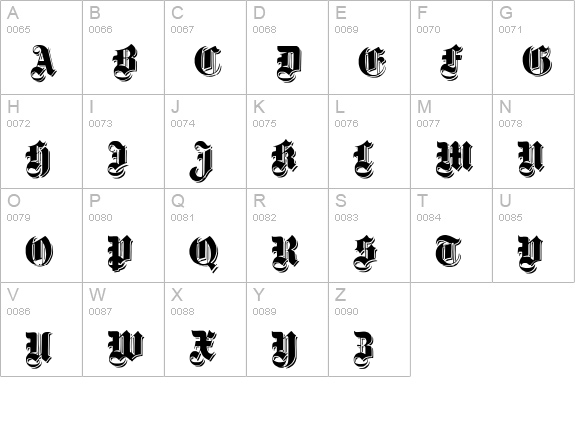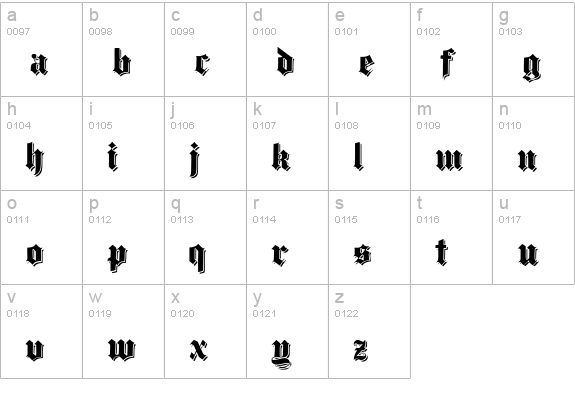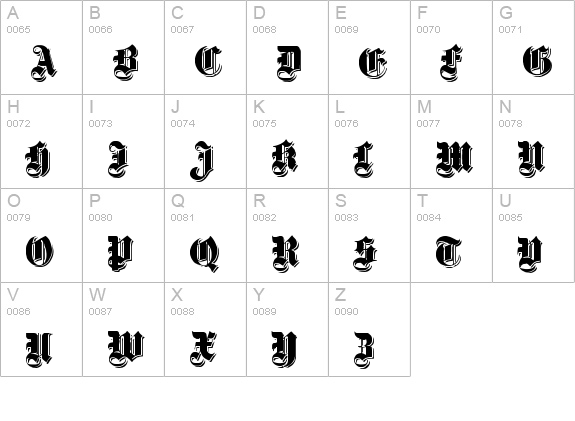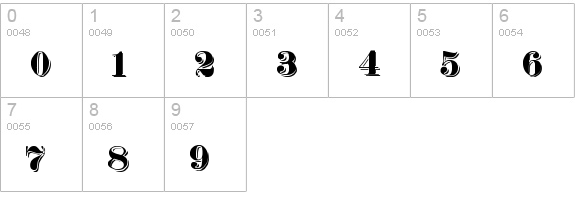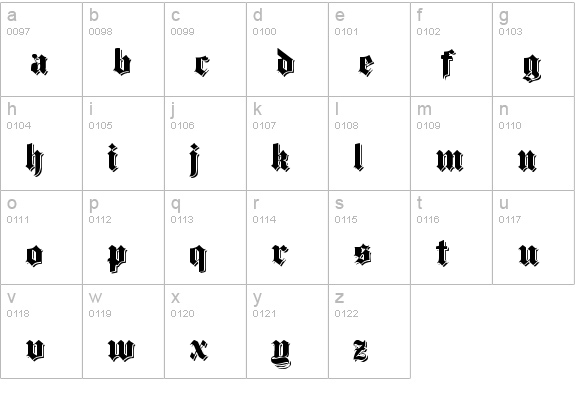
Dampfplatz Shadow Black Font Details
Dampfplatz Shadow Black is a maximum-weight, dramatic variant in the Dampfplatz typeface family \xE2\x80\x94 well suited to maximum-impact headlines, posters, and packaging.
The Dampfplatz Shadow Black font is a breathtaking display typeface that exudes elegance and sophistication. Designed with meticulous attention to detail, this font features sleek and sharp letterforms that are infused with a touch of mystery and intrigue. The deep shadows create a captivating effect, adding depth and dimension to each character. This unique font is perfect for creating eye-catching headlines, logos, and branding materials that demand attention. Its bold and powerful presence makes it ideal for projects that require a strong and impactful visual statement. Whether used in print or digital media, the Dampfplatz Shadow Black font is sure to leave a lasting impression on your audience. What sets this font apart is not just its stunning design, but also the fact that it is available as a free download. You can easily access and utilize this font for your personal and commercial projects without any cost. Simply visit FontsMarket.com to freely download the Dampfplatz Shadow Black font and unlock its incredible potential. With its versatility and striking aesthetic, the Dampfplatz Shadow Black font is a must-have for designers, artists, and creatives alike. Elevate your designs and make a bold statement with this exceptional typeface. Add a touch of sophistication and allure to your projects by incorporating the Dampfplatz Shadow Black font – the epitome of timeless elegance and modern design.